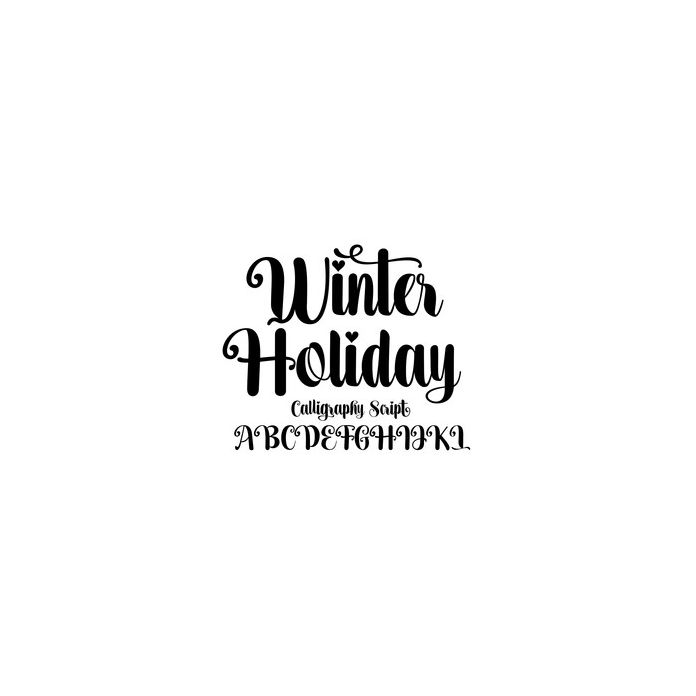
Holiday Winter bold font that is straightforward and charming when combined in any design is also suitable for welcoming the new year. Perfect for projects, products, crafts, invitations and personalization. Includes alphabet, numbers, and punctuation.